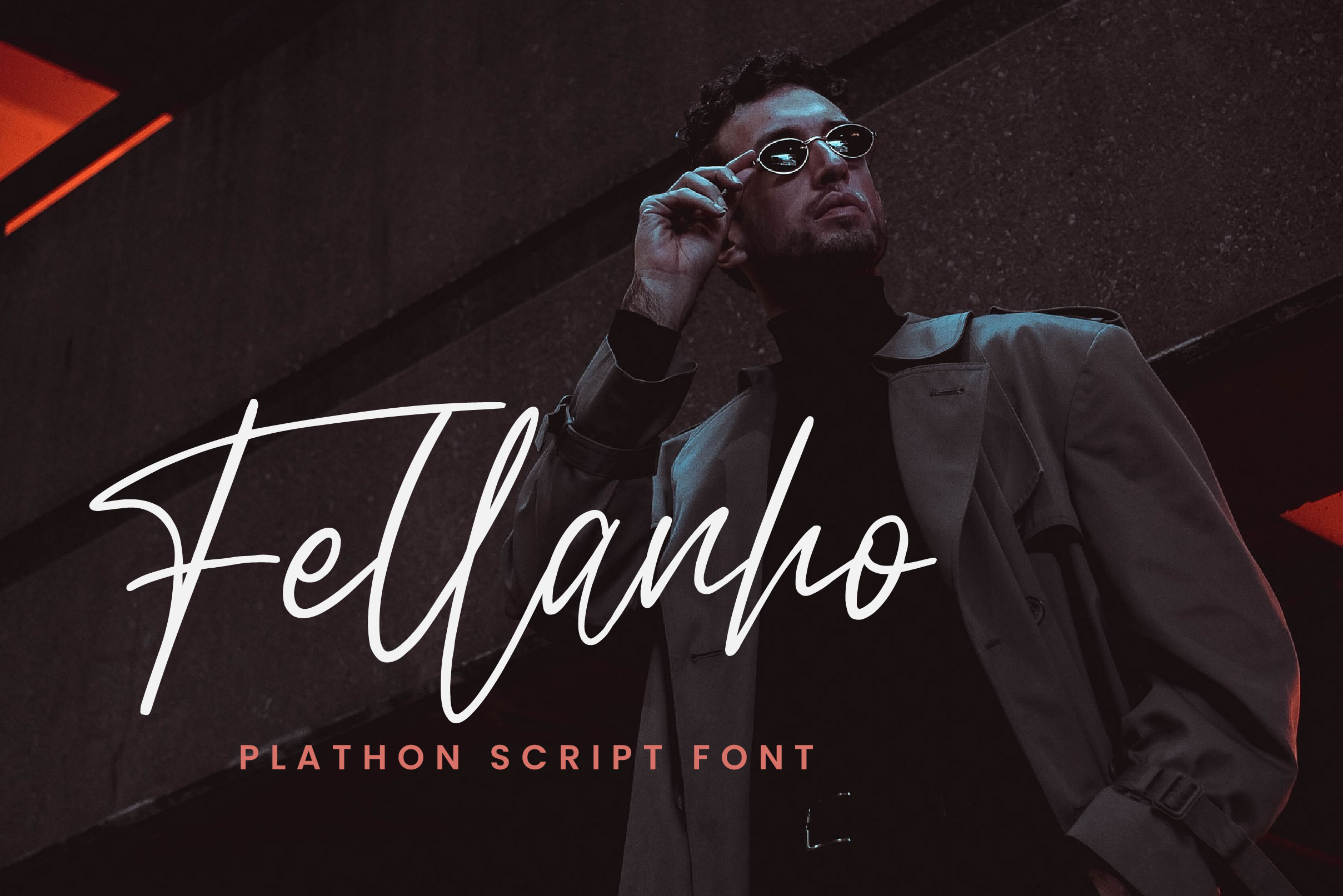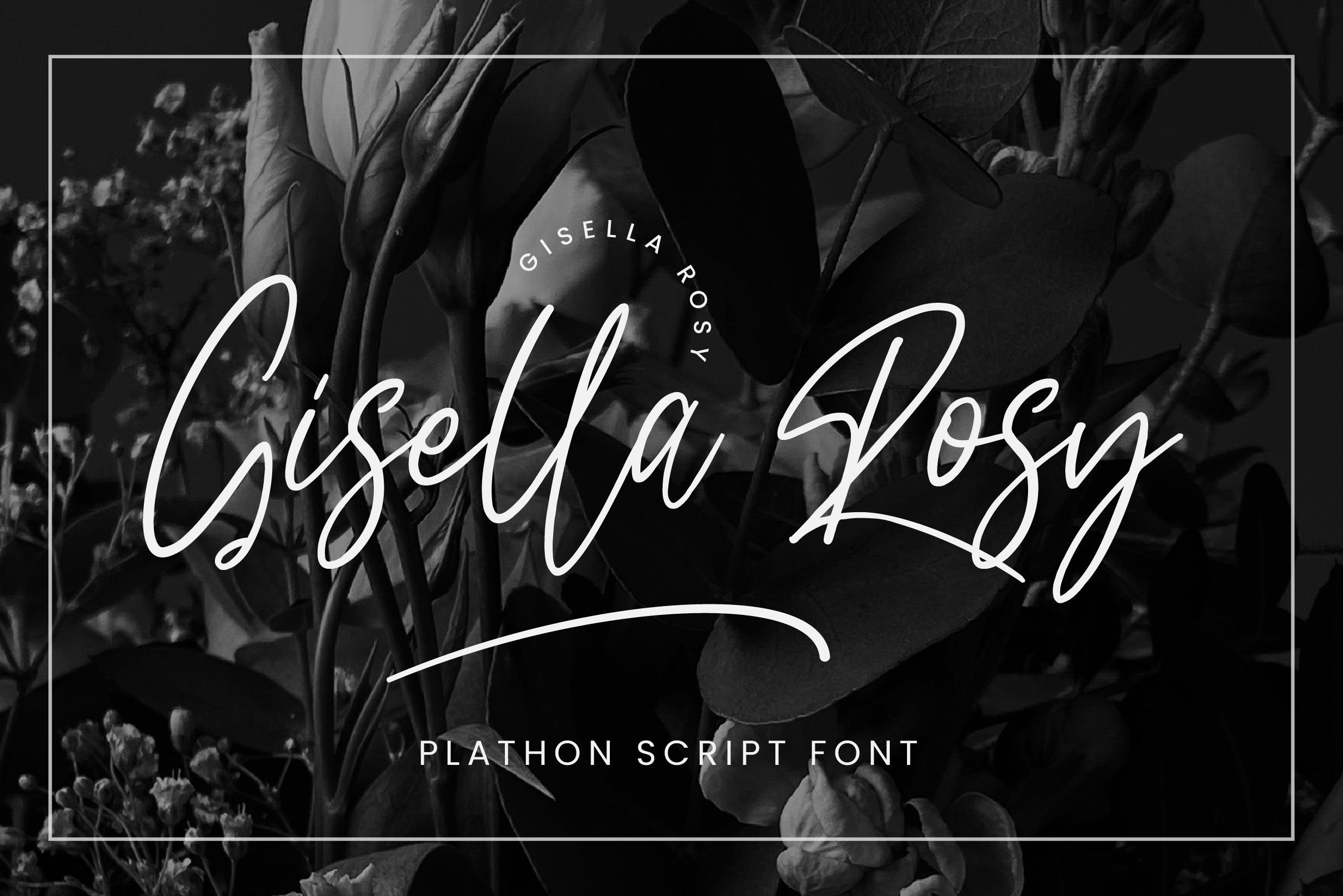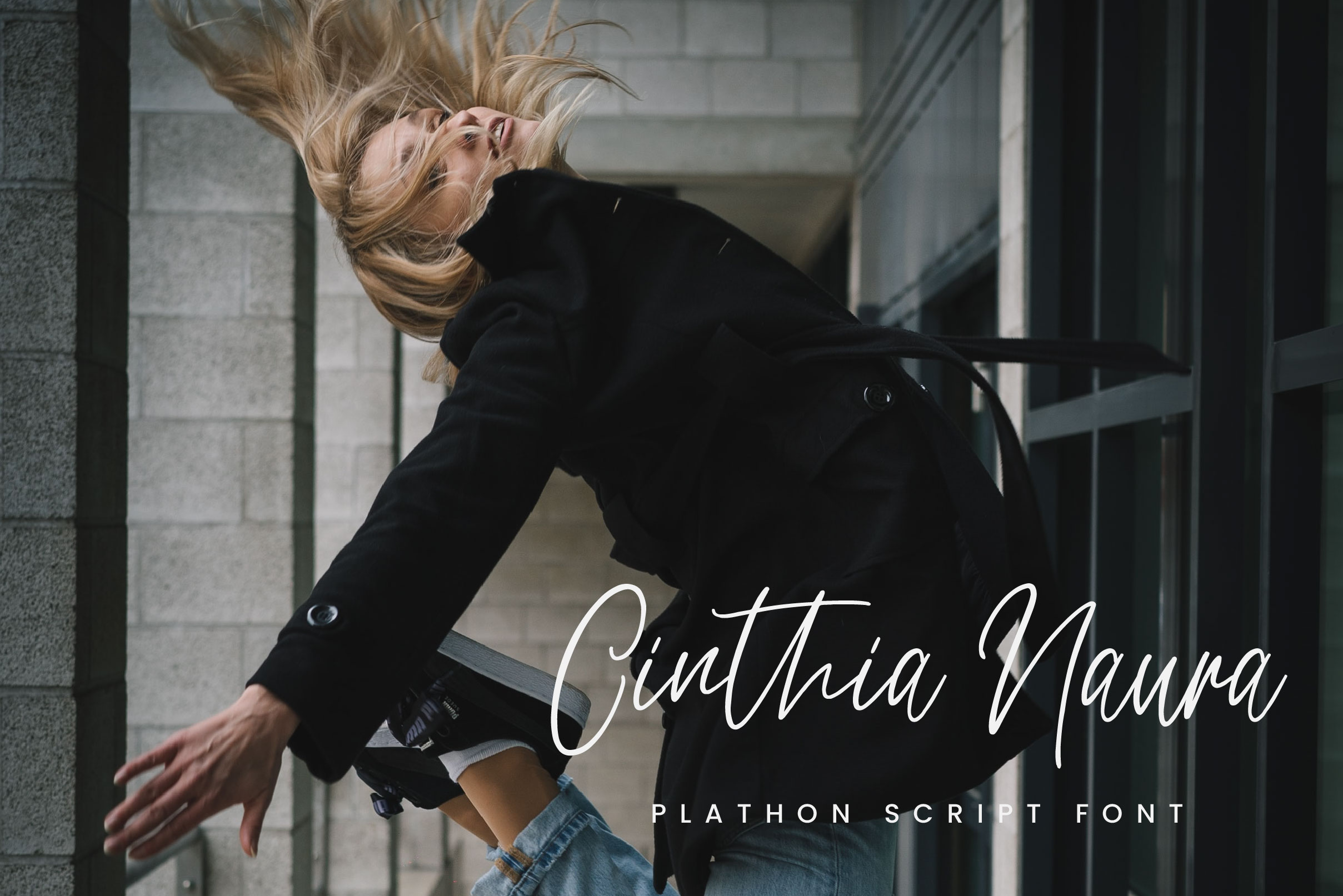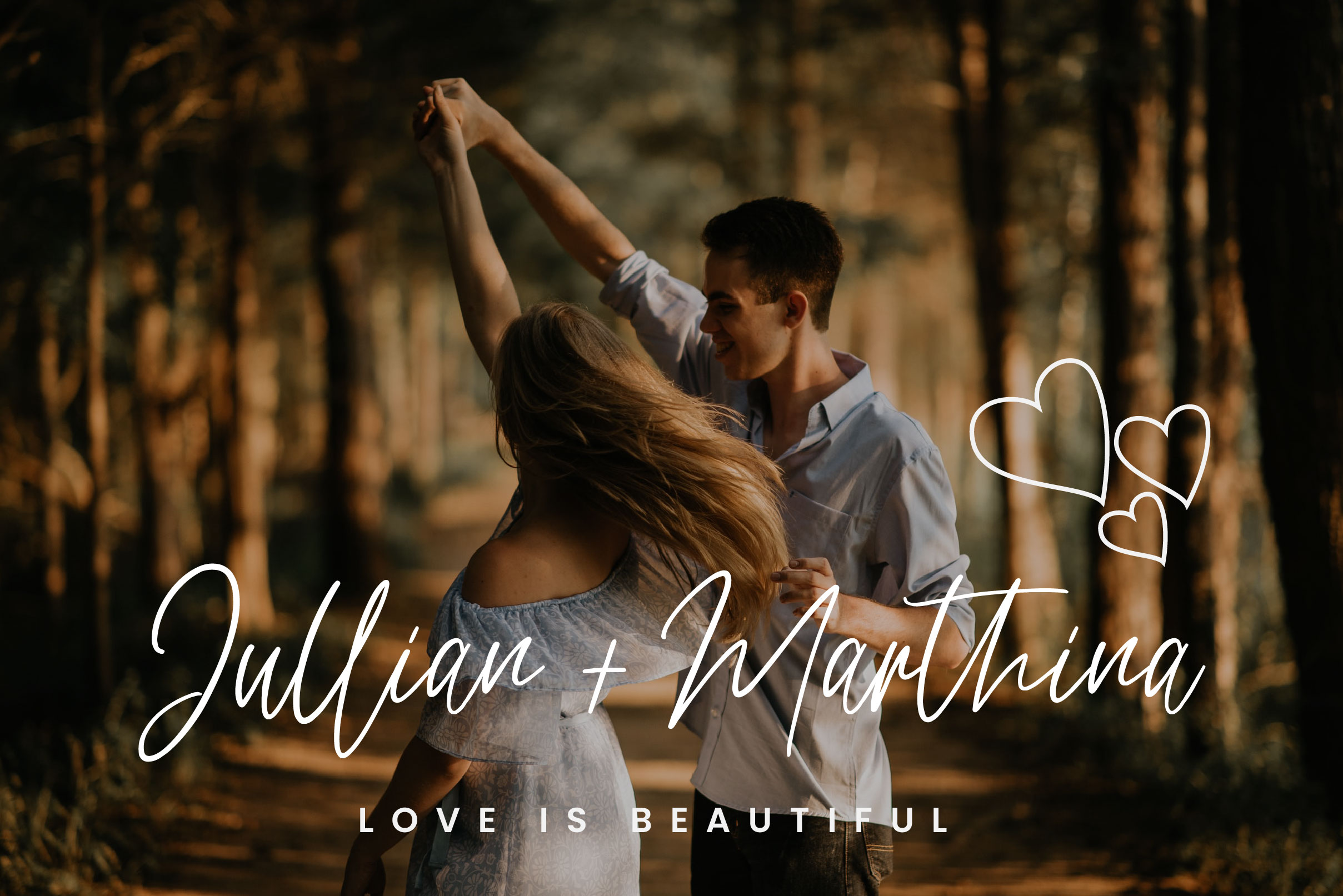
Plathon Font
Plathon Handwritten Font is a slim and elegant handwritten font. This font will be suitable for various projects such as quotes, logos, blog headers, posters, ribbons, fashion, clothing, letters, invitations, stationery, etc.
– Uppercase, Lowercase, Numeral & Punctuation
– Alternate Letters, Ligature & Swash/Tail